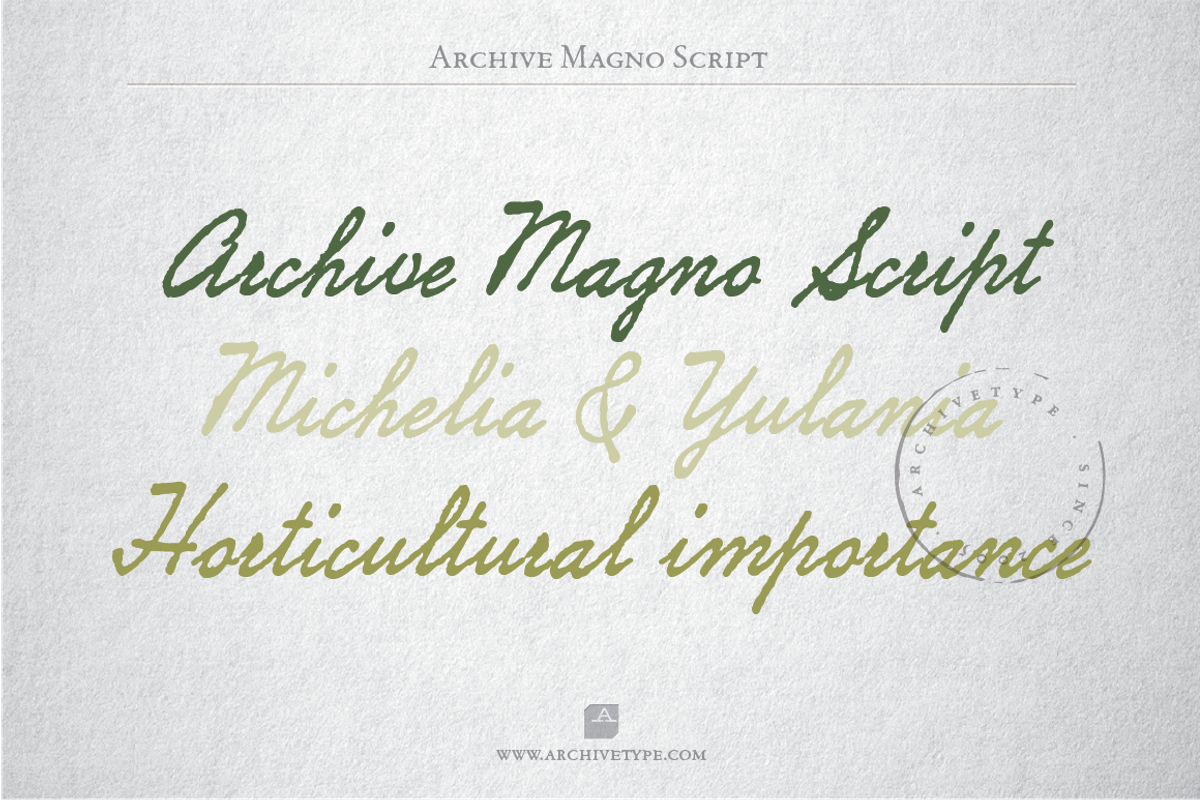
Archive Magno Script Font
Introducing Archive Magno Script, a distinctive script typeface designed by Sigit Dwipa Raharjo and offered by Archive Type. This font draws inspiration from retro aesthetics, making it suitable for projects that require a vintage or classic touch. It's ideal for applications such as posters, magazine headlines, branding, and more
Features:
• Style Included: Regular
• Character Set: Uppercase and lowercase letters, numerals, and basic punctuation
Usage Recommendations:
Archive Magno Script is well-suited for creating eye-catching headlines, logo designs, and promotional materials that aim to evoke a sense of nostalgia and timelessness